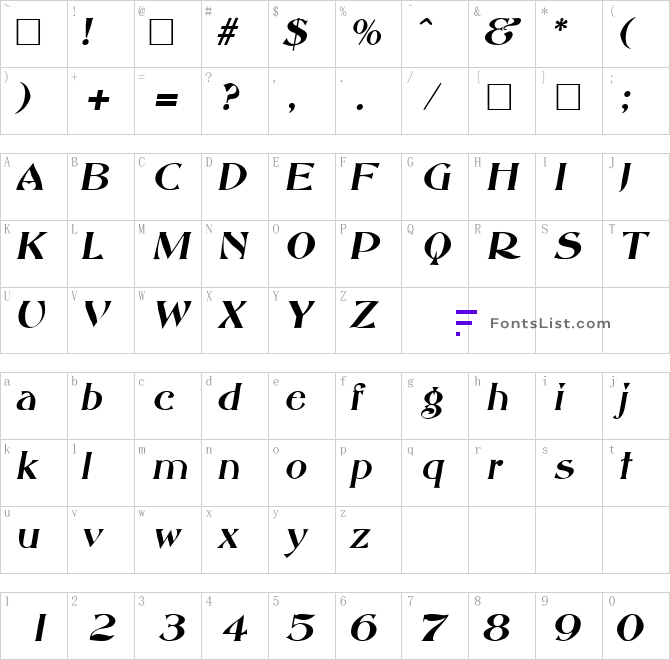
- Font Name:Abbey Old Style SF
Abbey-Old-Style-SF-Italic.ttf is a very beautiful artistic font, Abbey-Old-Style-SF-Italic.ttf is widely used in the design and printing of various books and pictures,Abbey-Old-Style-SF-Italic.ttf has a strong visual impact,Abbey-Old-Style-SF-Italic.ttf is a commonly used font in newspapers, magazines and books, and is used in posters, e-commerce Poster design, store design, logo design, font design and other fields.Abbey-Old-Style-SF-Italic.